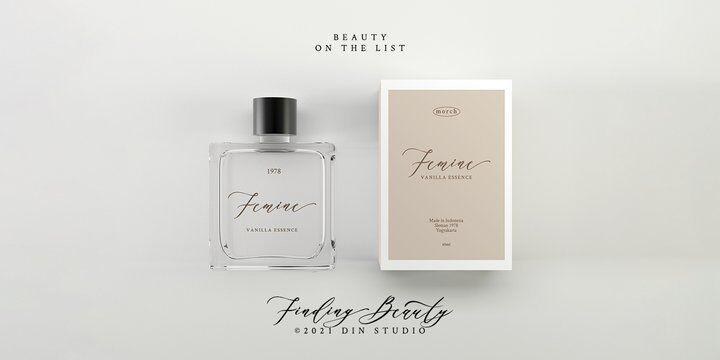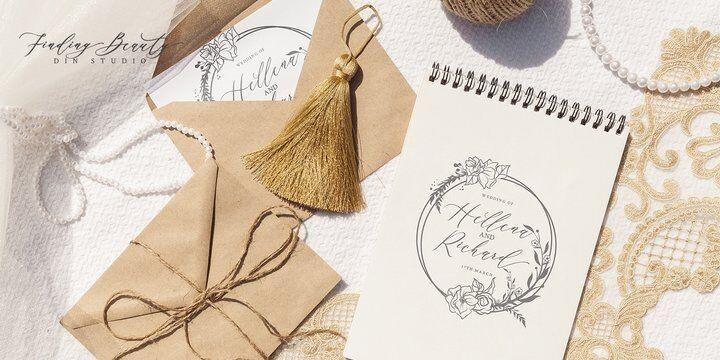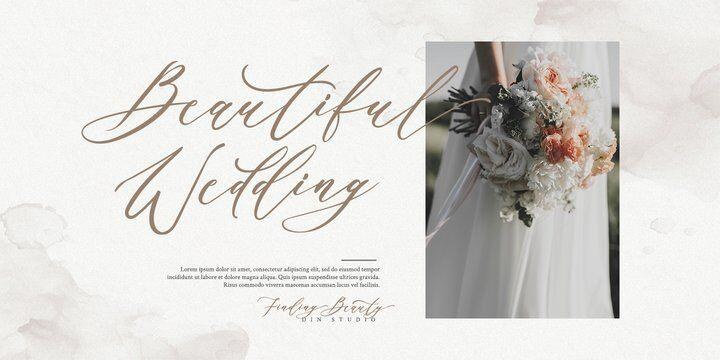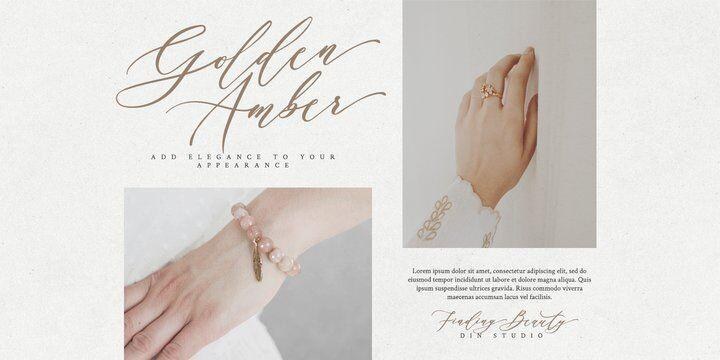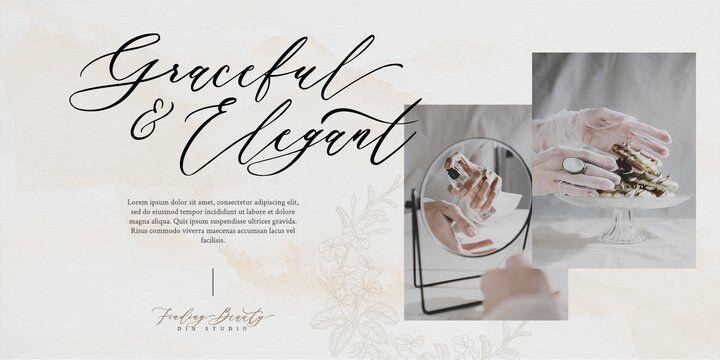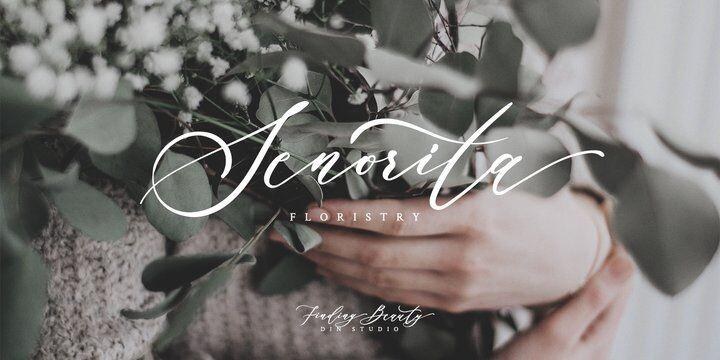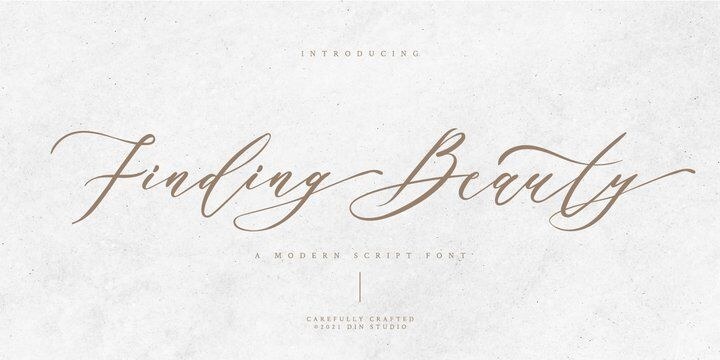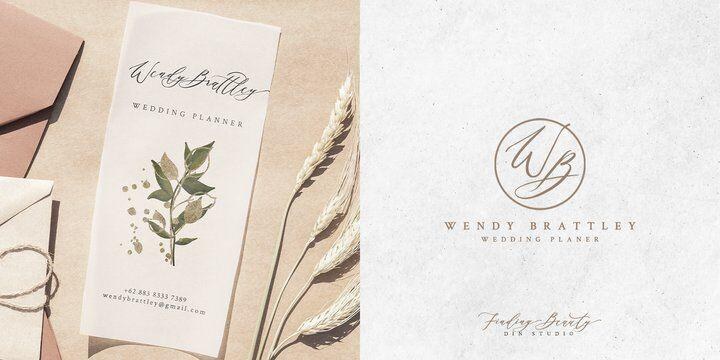
Finding Beauty Font
Finding Beauty is designed and carefully handcrafted elegantly and gracefully to embrace your project. This font will never go wrong for your audience, clients, guests or anyone around you! Use it for headings, logos, business cards, printed quotes, invitations of all sorts, cards, packaging, and your website or social media branding.
Finding Beauty Font is a Script And Handwritten font that brings a professional and versatile look to your projects. Finding Beauty is designed and carefully handcrafted elegantly and gracefully to embrace your project.